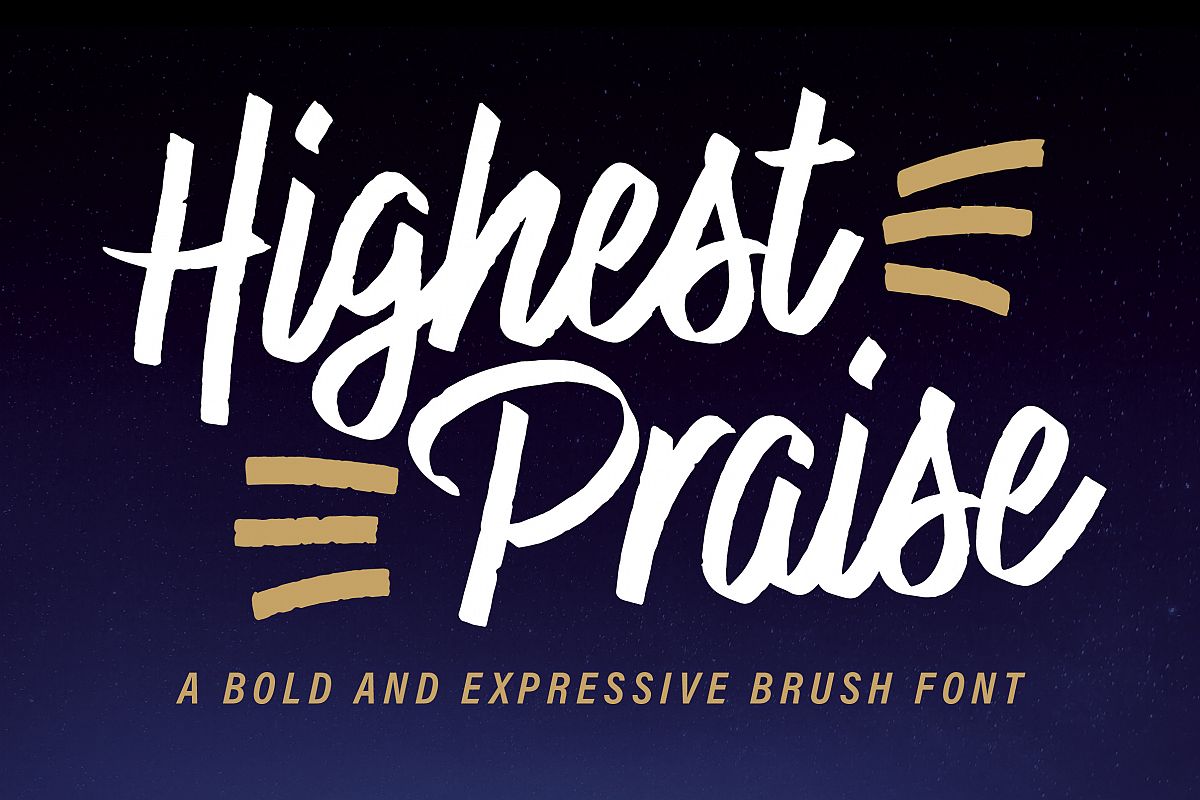
Highest Praise is a bold and expressive brush script font. It has condensed proportions and subtle texture on the edges, giving it a blend of modern and vintage qualities. While stylish and distinct, the typeface is very readable, making it great for branding, packaging, quotes, invitations, headlines, etc.